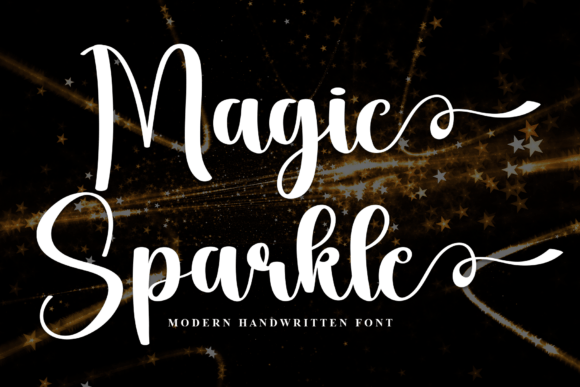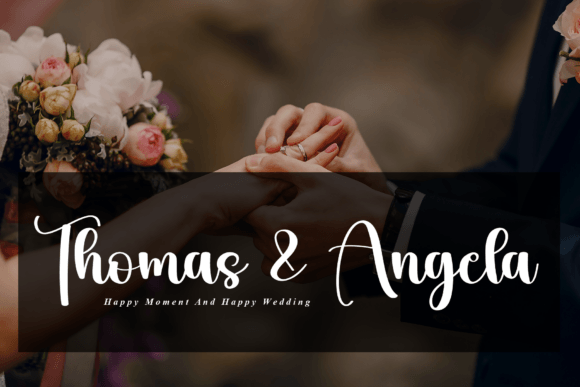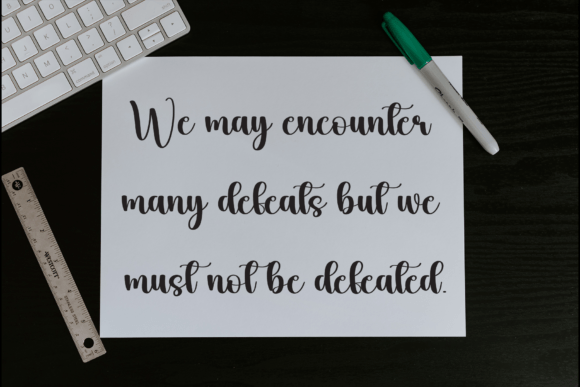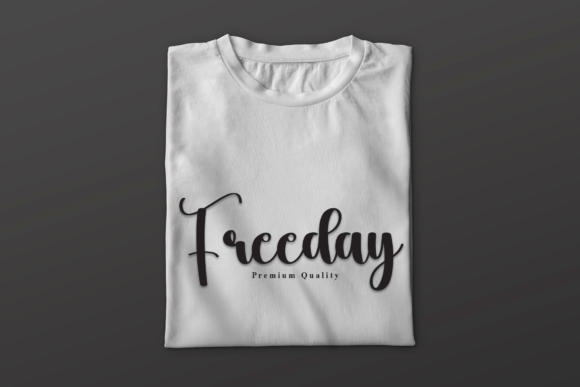
Magic Sparkle Font: Elegant Handwritten Script for Wedding Design
About the Magic Sparkle Font
Add a touch of class to your work with the Magic Sparkle Font, a truly exceptional typeface. Magic Sparkle is a stylish script font that looks like elegant handwriting. It’s smooth, flowing, and perfect for invitations, logos, and designs that need a personal, creative touch.
Magic Sparkle’s elegant, flowing forms are ideal for projects requiring a touch of personalized charm. It excels in headlines, logos, short quotes, and invitations, adding a sophisticated handwritten feel to branding and packaging. However, its script nature makes it unsuitable for extended body text or UI elements where readability is paramount.
This font’s personality is undeniably elegant and slightly playful. It suggests a sophisticated yet approachable brand; think boutique hotels, artisan goods, or high-end stationery. Pairing it with a clean sans-serif like Montserrat for body text or a simple serif like Playfair Display for supporting headings provides a balanced and refined aesthetic.
Consider using a geometric sans-serif like Futura for a modern contrast or a more whimsical hand-drawn font for a cohesive, creative look. Avoid pairings with overly heavy or excessively ornate fonts to maintain the delicate balance of Magic Sparkle’s unique character.
Magic Sparkle Font Usage Examples
Magic Sparkle Font Example